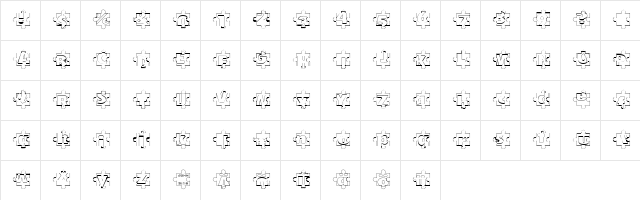
Puzzle Pieces Outline Free Font
Puzzle Pieces Outline
Style: Outline
Design Context for Puzzle Pieces
Puzzle Pieces is built around its visual character rather than neutral utility - its distinctive forms are designed to make an impression at display sizes.
Font Pairing: Pair with a clean neutral sans-serif for body copy to let Puzzle Pieces's character lead without overwhelming the composition.
Pro Tip: Use Puzzle Pieces exclusively at display sizes - it was designed to be seen, not read at length. Let a neutral companion handle body copy.